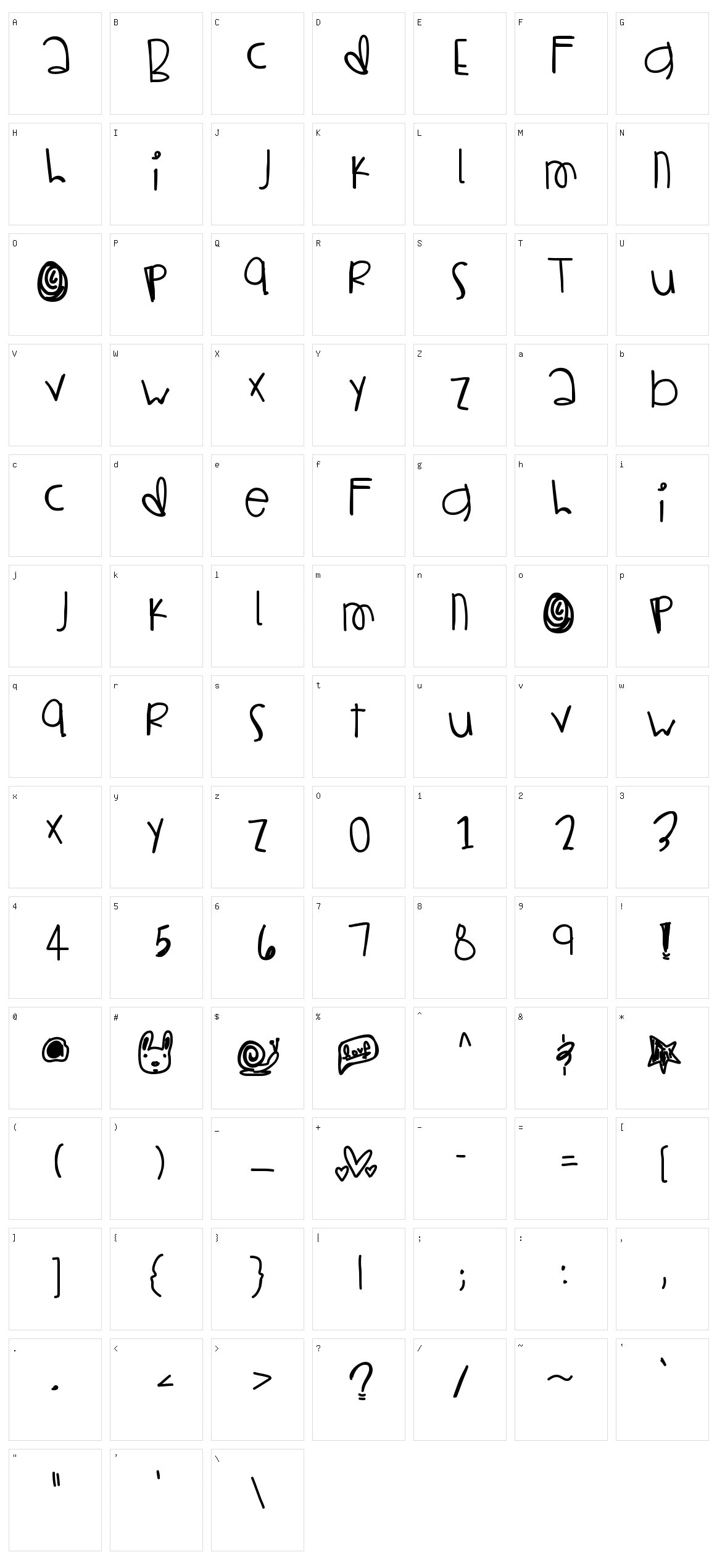
The free font Smooth Operator is carefully designed by Des Gomez, showcasing a thoughtful balance of creativity and usability and falls under the Cartoon font style. When you download the ZIP file, it contains only 13.91 KB of font files, making it lightweight and quick to download. Please review the license details below to understand permitted usage and distribution rights. If license information is not available, we recommend using this font for personal projects only or contacting the author directly for commercial usage permissions.